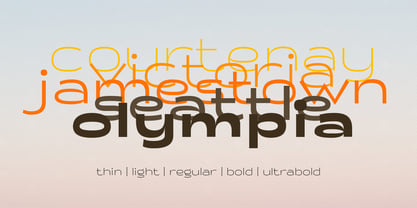
Salish
by Saja TypeWorks
Salish Font Family was designed by Aaron Bell and published by Saja TypeWorks. Salish contains 5 styles. More about this family
About Salish Font Family
Salish is a sans-serif typeface inspired by the art of the Salishan tribes in the Northwest Americas. It draws heavily on the concept of the ‘ovoid’, a wide ovular shape that is flat on the bottom and top heavy, that is central to the art style known as ‘Formline’. Designed by Aaron Bell of Saja Typeworks, Salish comes in 5 weights, from Thin to UltraBold. Language support includes some 200 Latin-based languages as well as the necessary orthographies for all Salishan languages, including: Comox, Sliammon, Klahoose, Pentlach, Sechelt, Squamish, Halkomelem, Nooksack, Straights Salish (Saanich), Lushootseed, S'Klallam, Quinault, Upper Chehalis, Lower Chehalis, Cowlitz, Bella Coola, Ditidaht, Tseshaht, Nuu-chah-nulth, Ehattesaht-Nuchatlaht, Kwak'wala, Shuswap, Lillooet, Thompson River Salish, Coeur d'Alene, Columbia-Moses, Colville, Okanagan, and Montana Salish. Haida (a non-Salishan language) is also supported.
About Saja TypeWorks
Saja TypeWorks is a Seattle-based type design agency run by Aaron Bell. Among his Latin design work, Aaron is passionate about international scripts and, in particular, Asian language and culture. His personal interests lie in the development and future of Korean typography and type design — a field he investigated while studying at the University of Reading, where he received a Masters of Arts in Typeface Design.